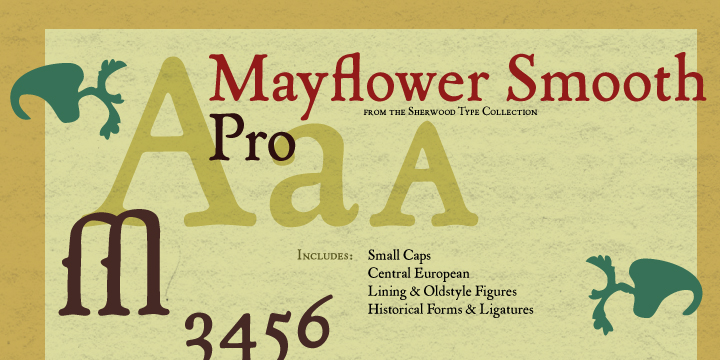
First seen on MyFonts: June 2nd, 2009 P22 Mayflower SmoothThe Mayflower font was originally designed by Ted Staunton in 2002 for the Sherwood Collection of fonts. Mayflower is a classical Roman font taken from a Bible of 1610, the edition likely carried to America by the pilgrims on the Mayflower. True to the original source, Mayflower featured a distressed look to simulate the appearance of inked metal type. Mayflower Smooth Pro lacks the inked look and is ideal for cleaner design applications and letterpress work. Both styles are evocative of early-Colonial type styles. Mayflower Smooth Pro features Small Caps, ligatures, fractions, historical forms and ligatures, Central European characters, discretionary ligatures, old style figures, lining figures and ornaments. Not quite what you’re looking for? Try looking at more fonts like this. |